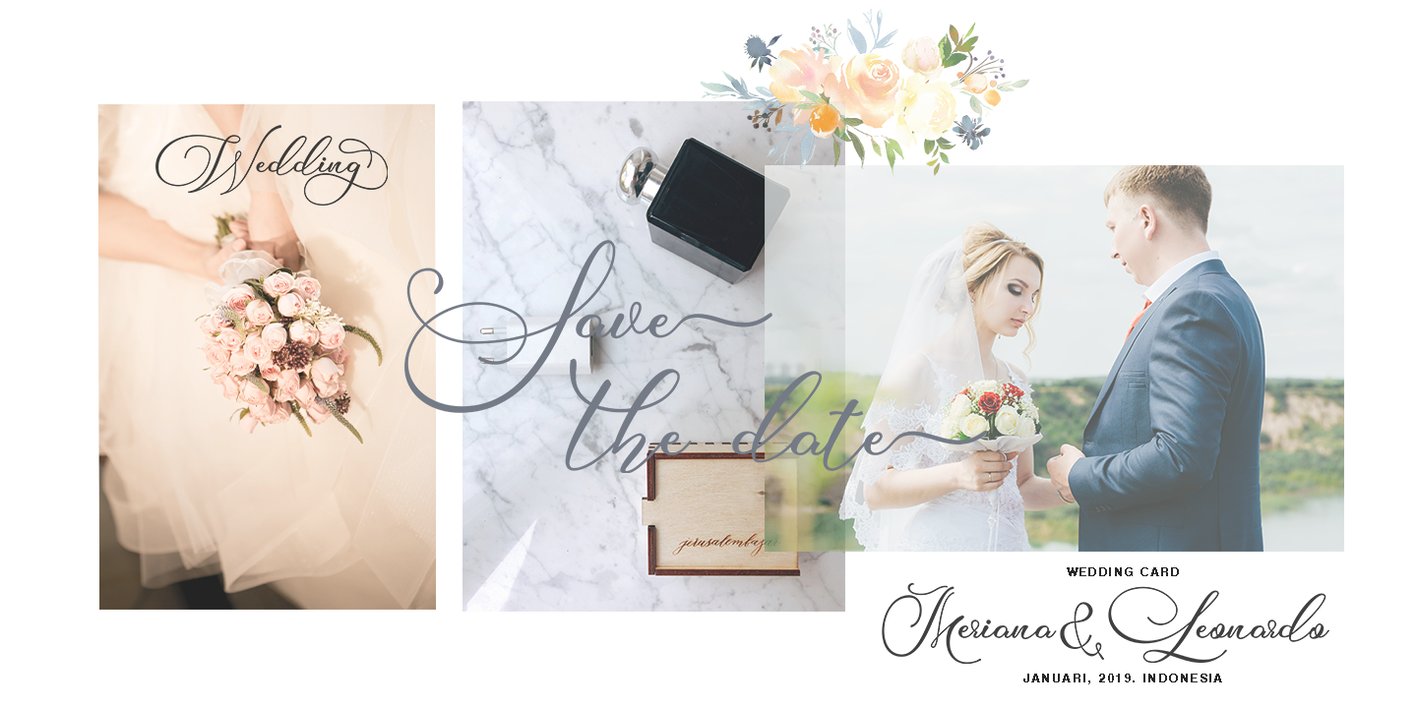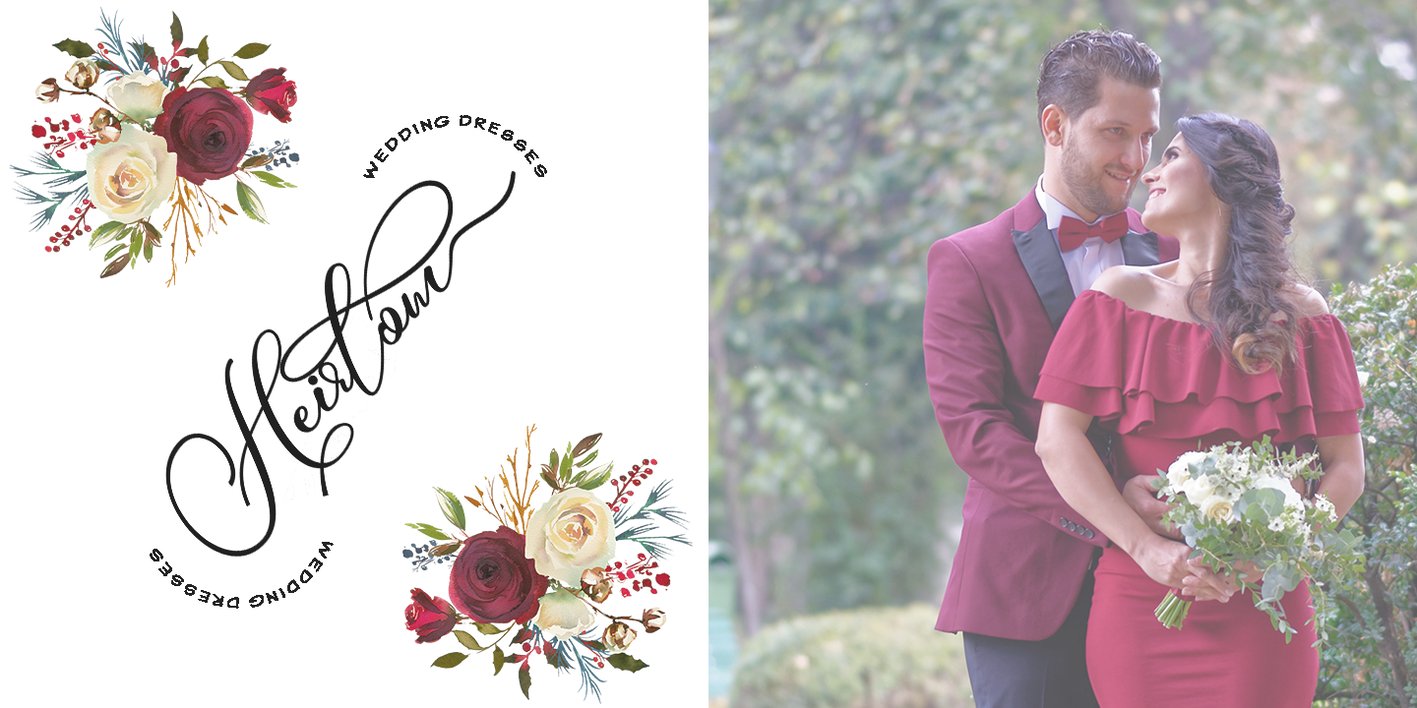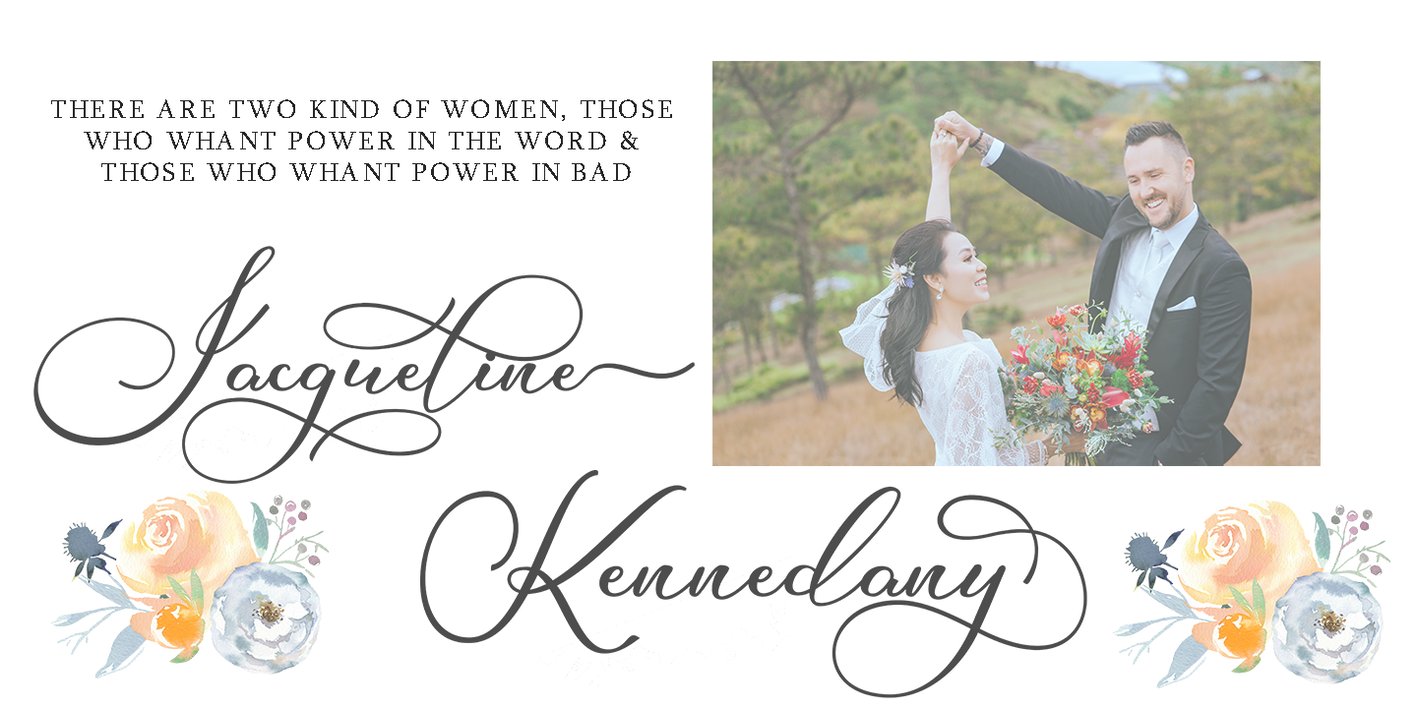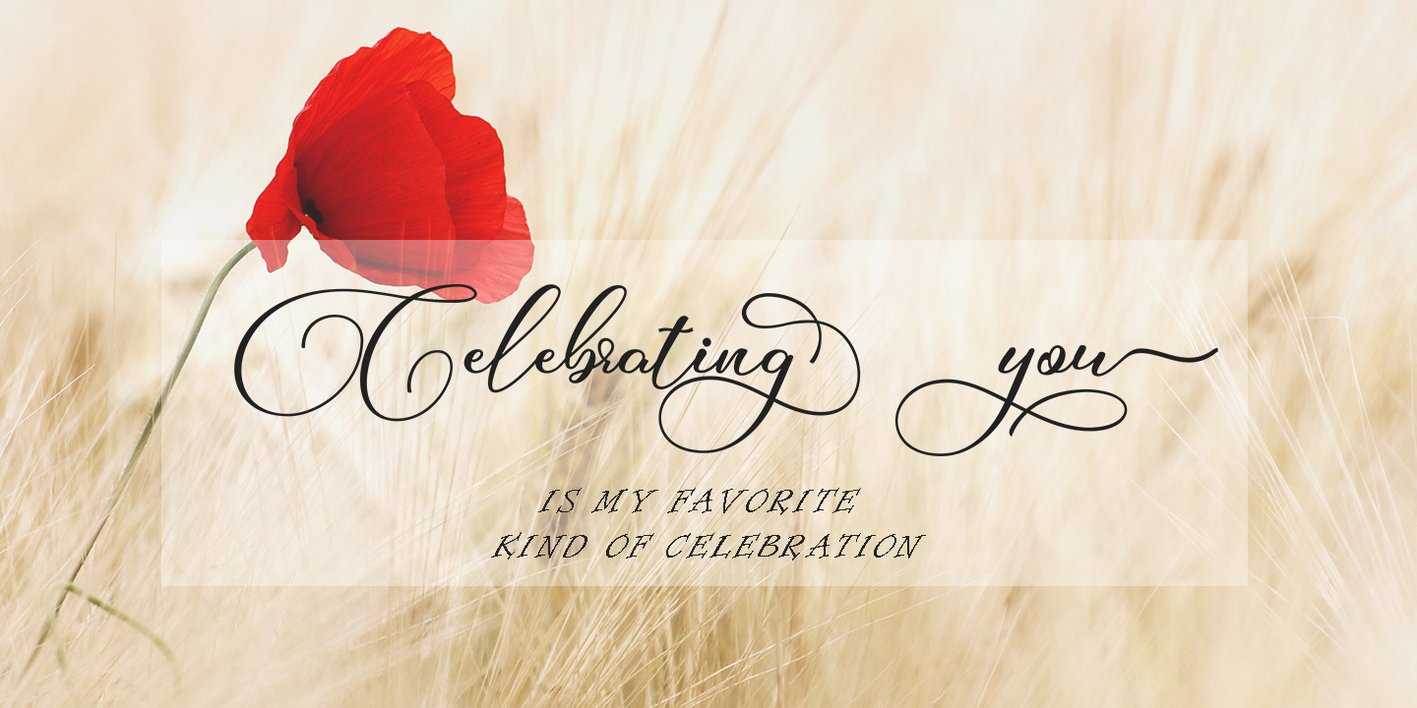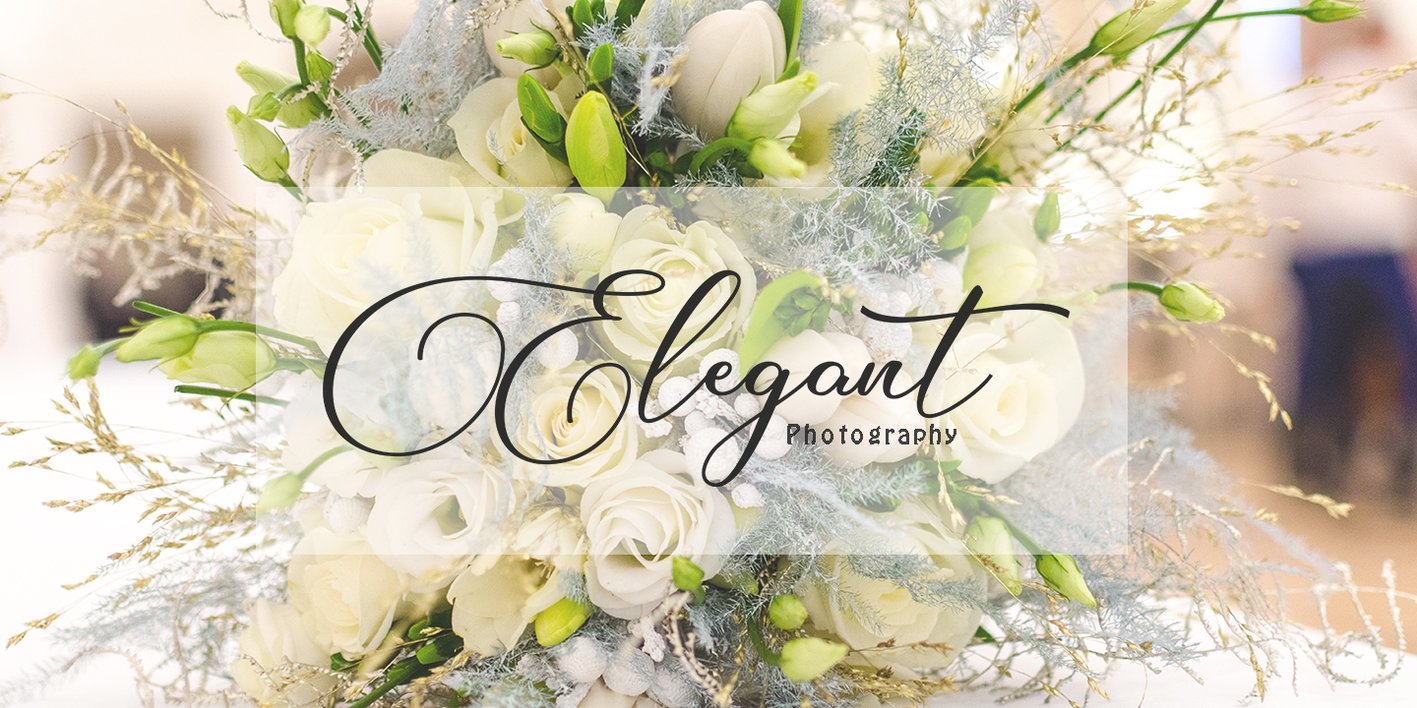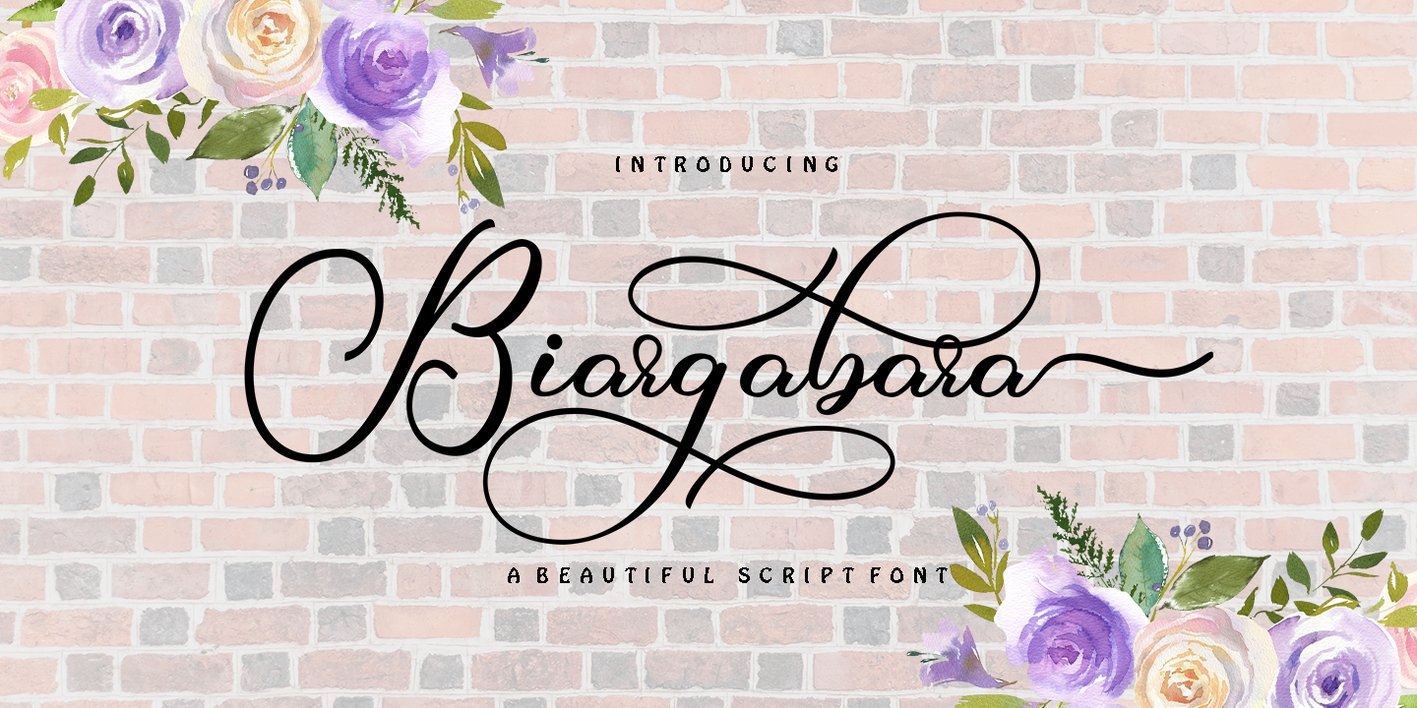
Biargabara Script Font
Biargabara is a Script font that has various basic lines, fine lines, classic, elegant, modern touches. Can be used for various purposes. if you want to use it for your work, this font can be used easily and simply because there are many features in it to load a lower complete set of letters and include initial letters and terminals, alternatives, binding and support for many languages. Files include: * Biargabara OTF * Biargabara TTF To activate the alternative OpenType Stylistic, you need a program that supports OpenType features such as Adobe Illustrator CS, Adobe Indesign & CorelDraw X6-X7, Microsoft Word 2010 or newer versions And this font has provided PUA Unicode (code-specific fonts). There are additional ways to access alternatives / swash, using Character Map (Windows), Nexus Fonts (Windows), Font Books (Mac) or software programs like PopChar (for Windows and Mac).